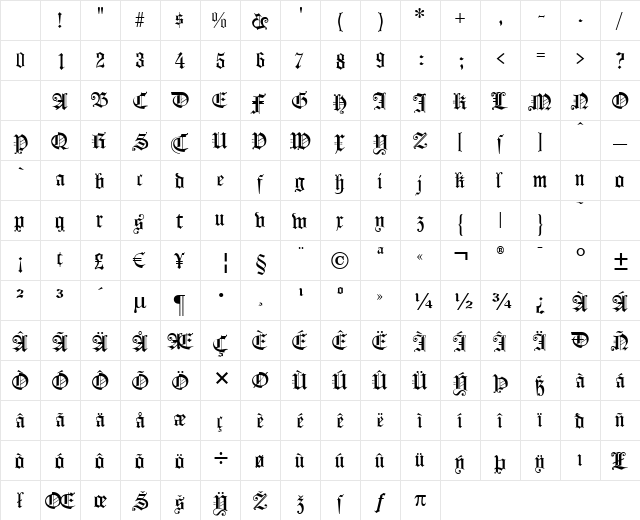
Complete Koenigsberger Gotisch UNZ1L Regular glyph index. Displaying only characters natively supported by Koenigsberger Gotisch UNZ1L Regular font.
Koenigsberger Gotisch UNZ1L is a composed and adaptable typeface that performs quietly and consistently across a wide range of design contexts.